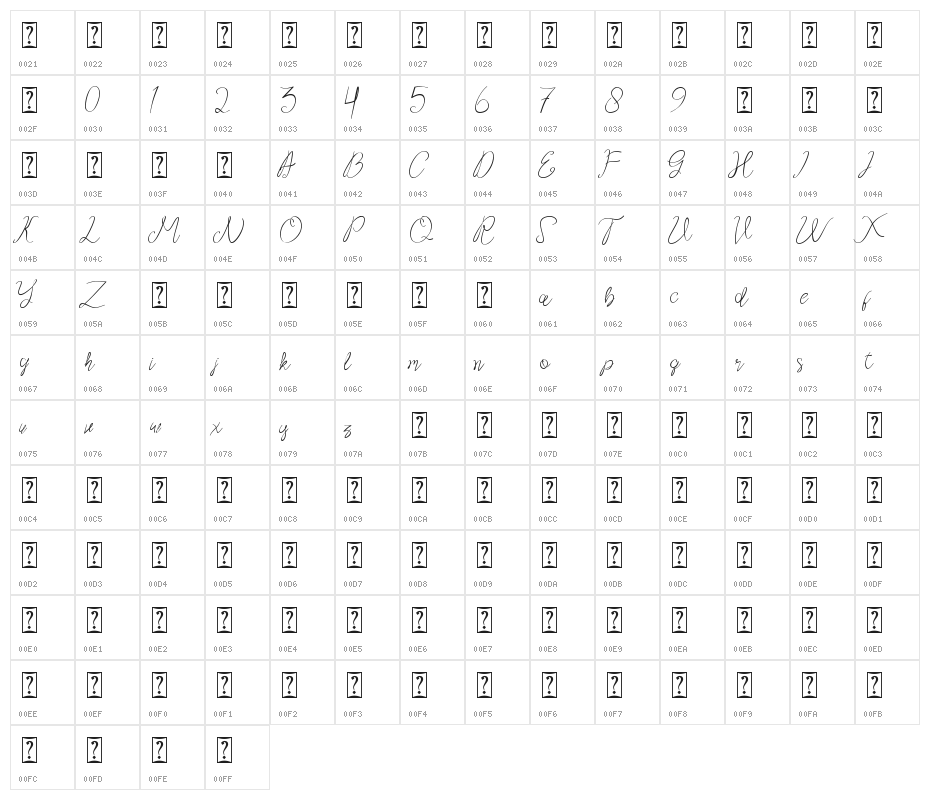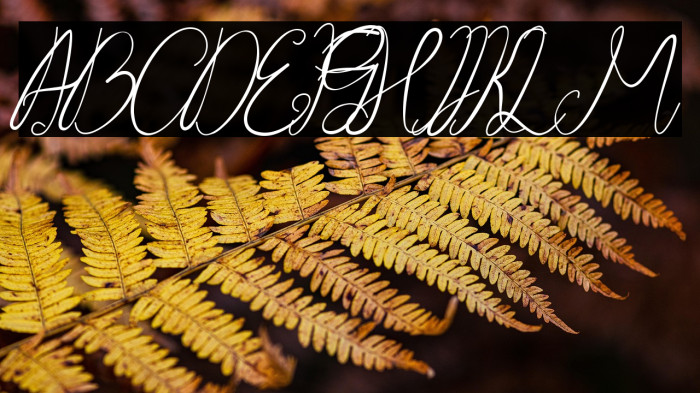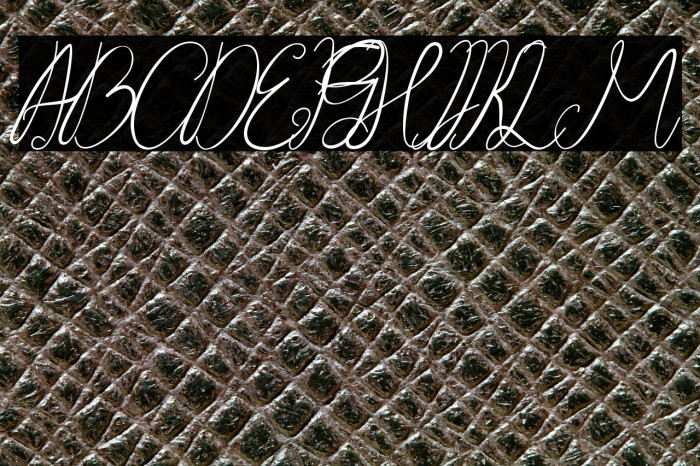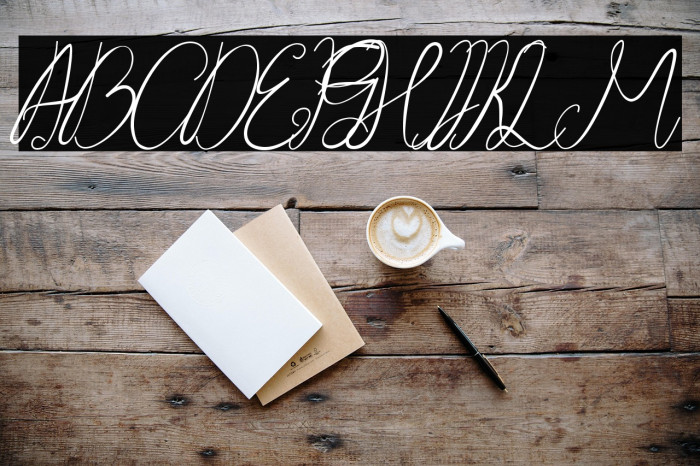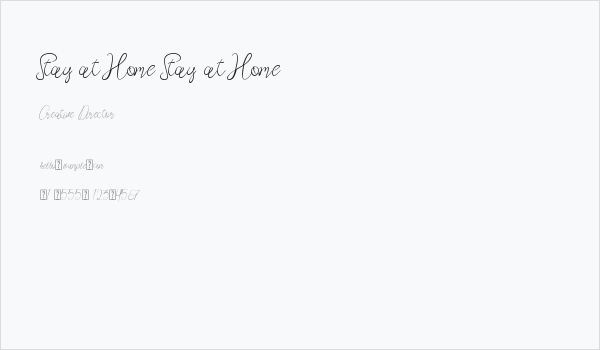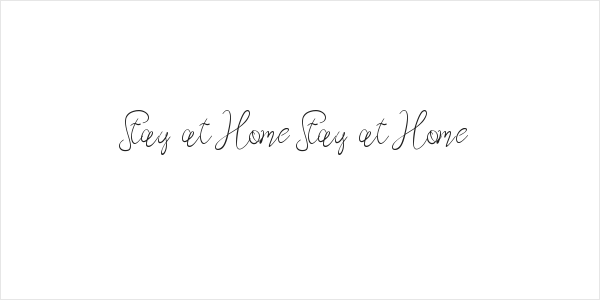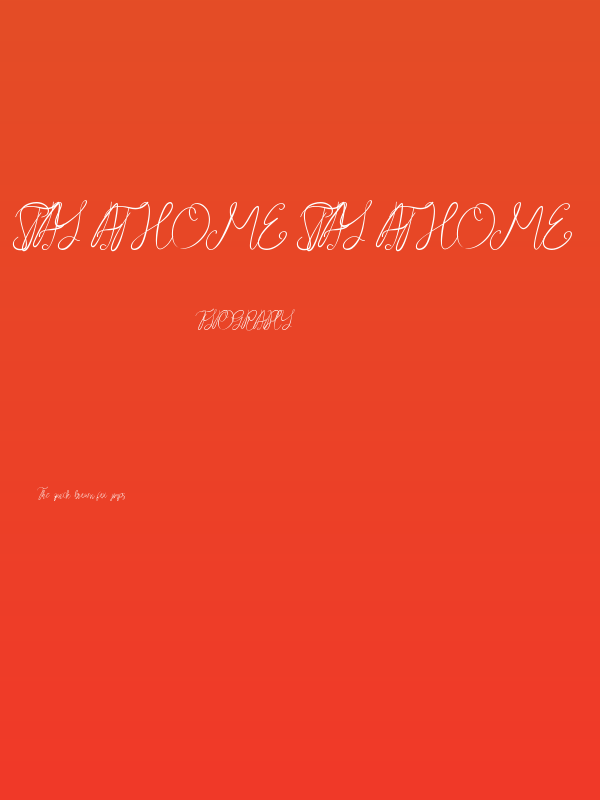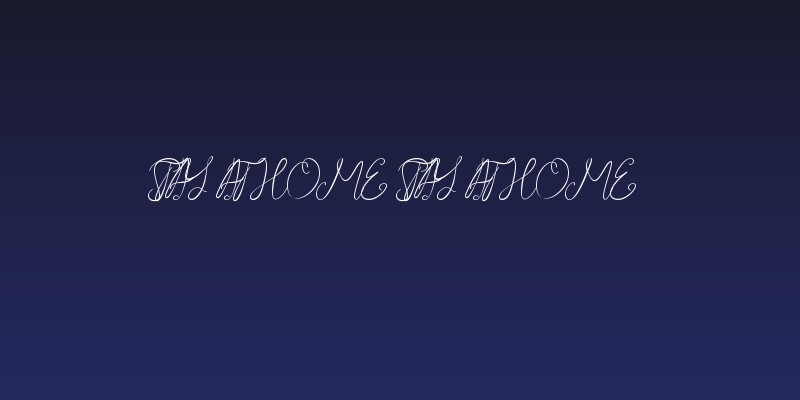
Stay at Home Font
Stay at Home Description
This elegant script font features flowing, interconnected letters that mimic the fluidity of cursive handwriting. The uppercase letters are grand and sweeping, with intricate loops and flourishes that add a touch of sophistication. The lowercase letters maintain a consistent flow, with gentle curves and a slight slant that enhances readability. Numbers are styled to match the script's graceful aesthetic, while special characters are creatively integrated, maintaining the font's overall elegance. This font exudes a sense of refinement and is perfect for projects that require a personal, handwritten touch.
| Overall Style | Elegant, Handwritten |
| Proposed Projects | Ideal for wedding invitations, greeting cards, personal branding, and elegant packaging designs. |